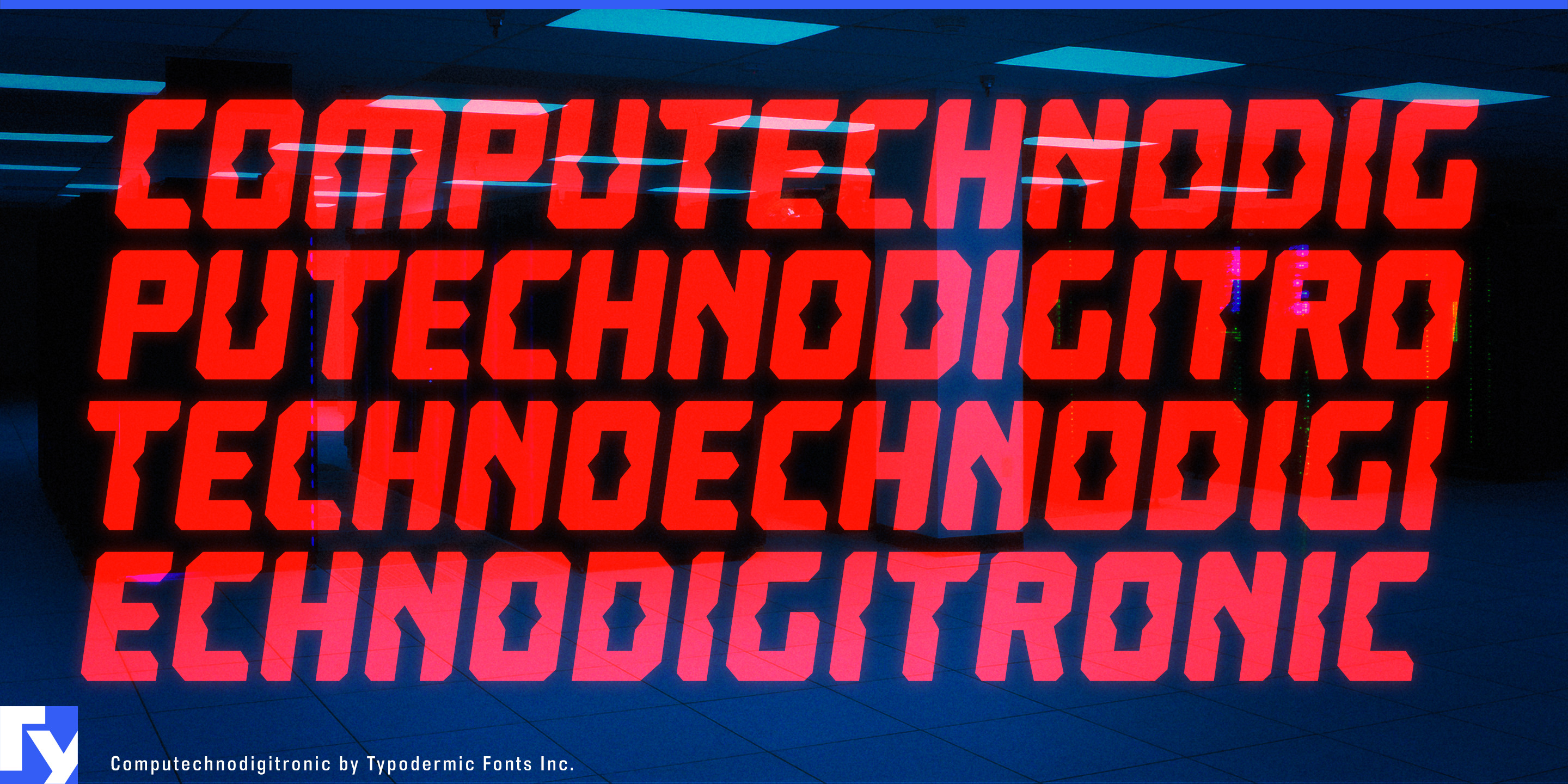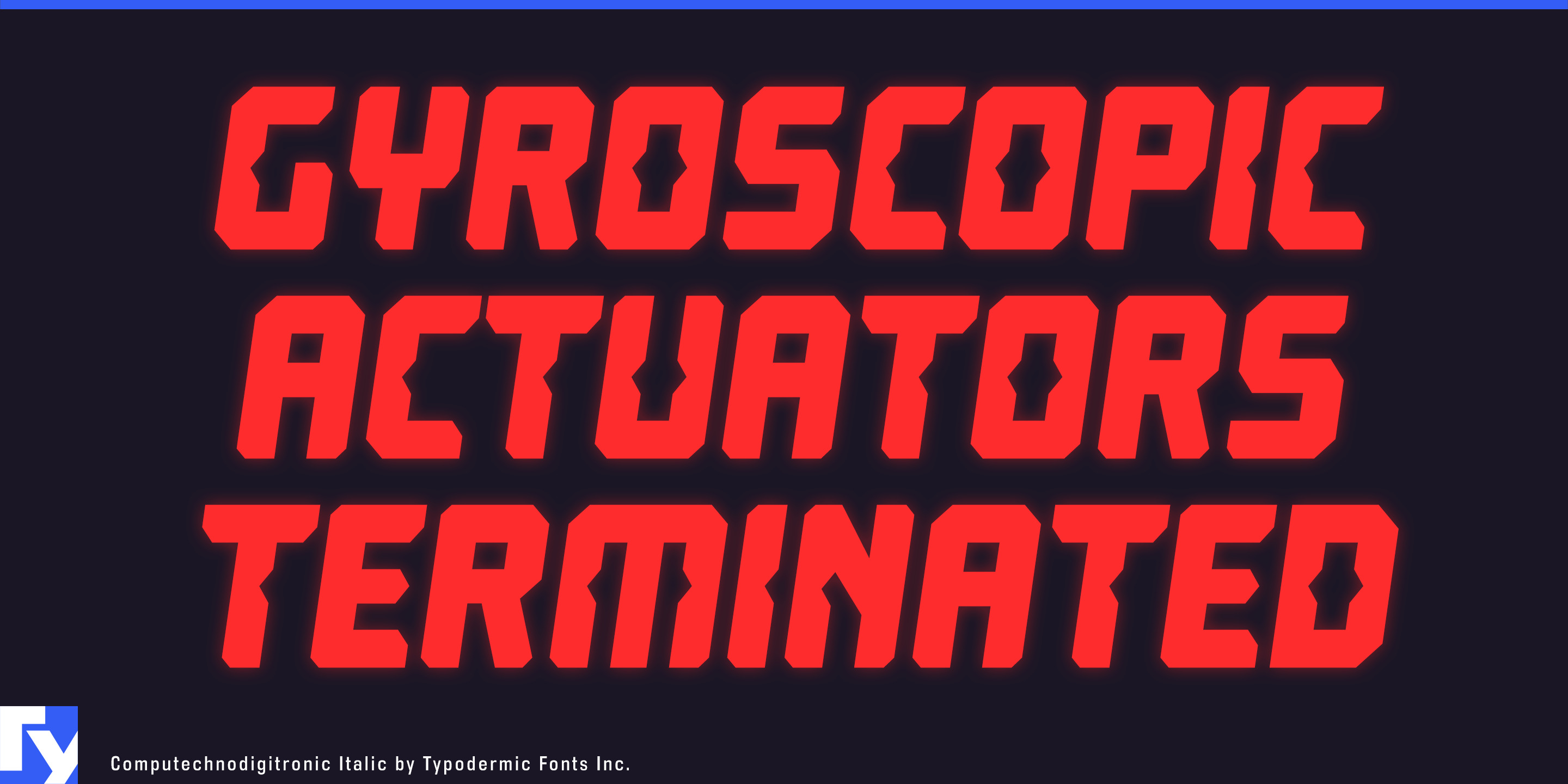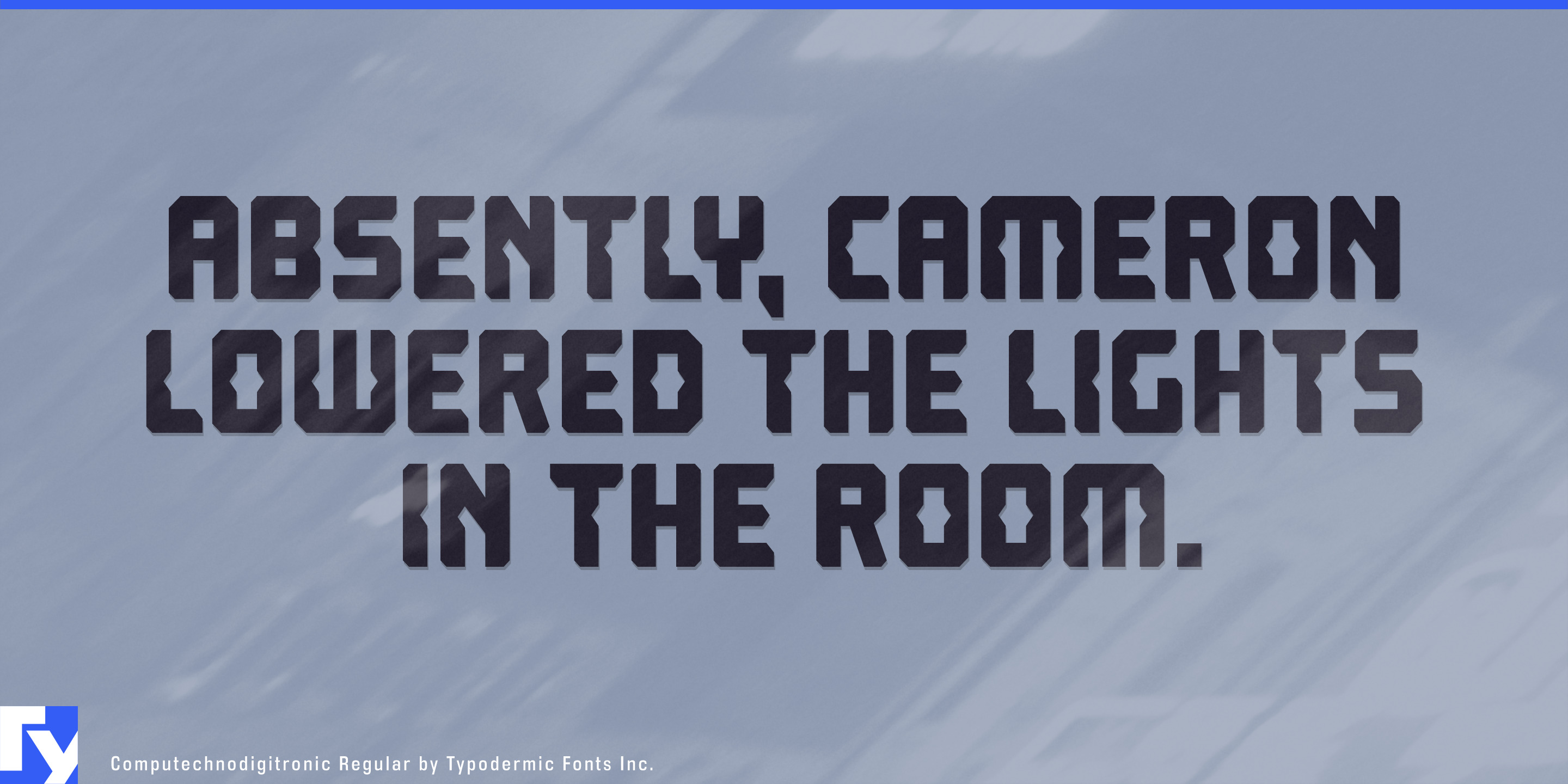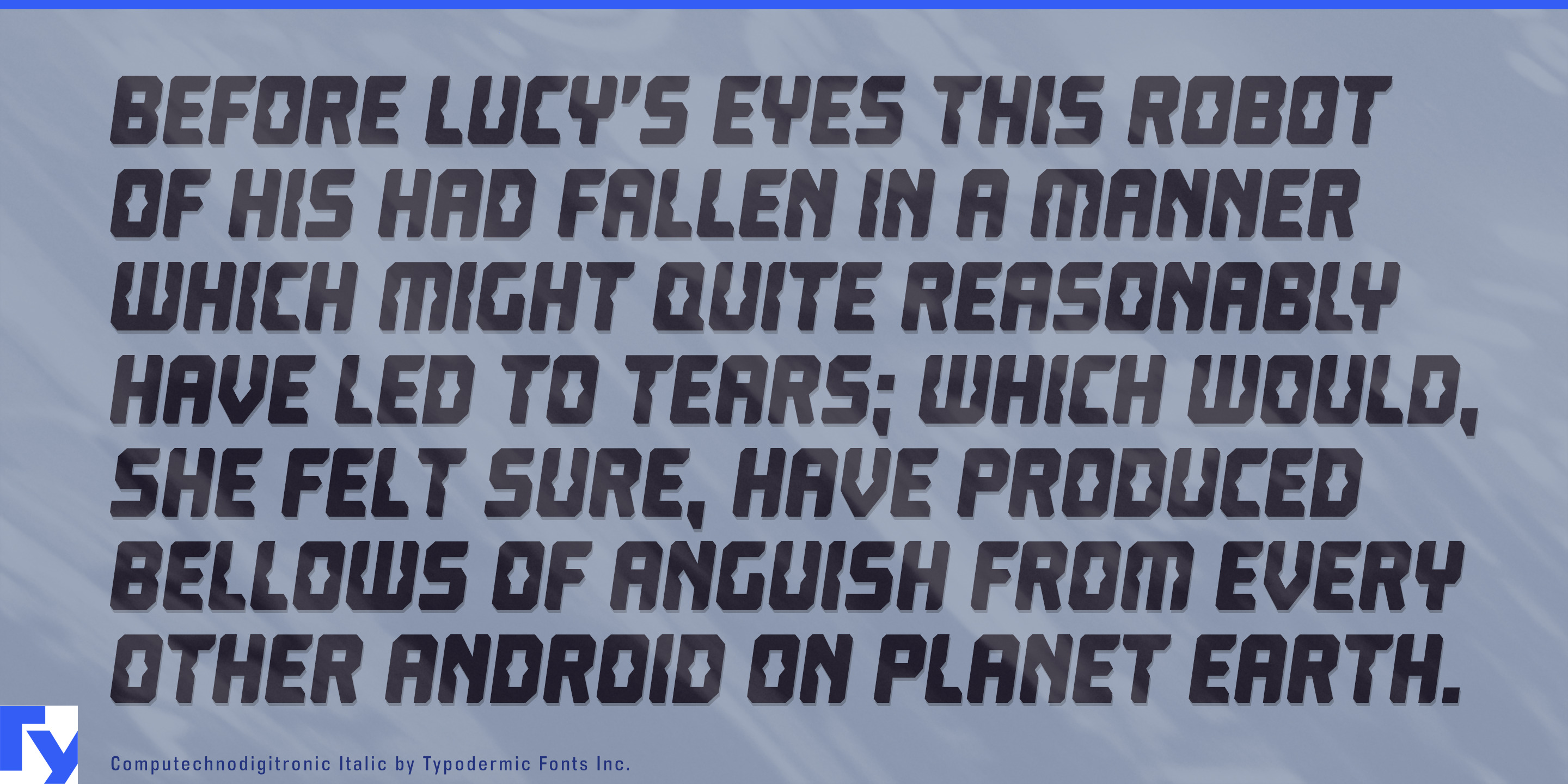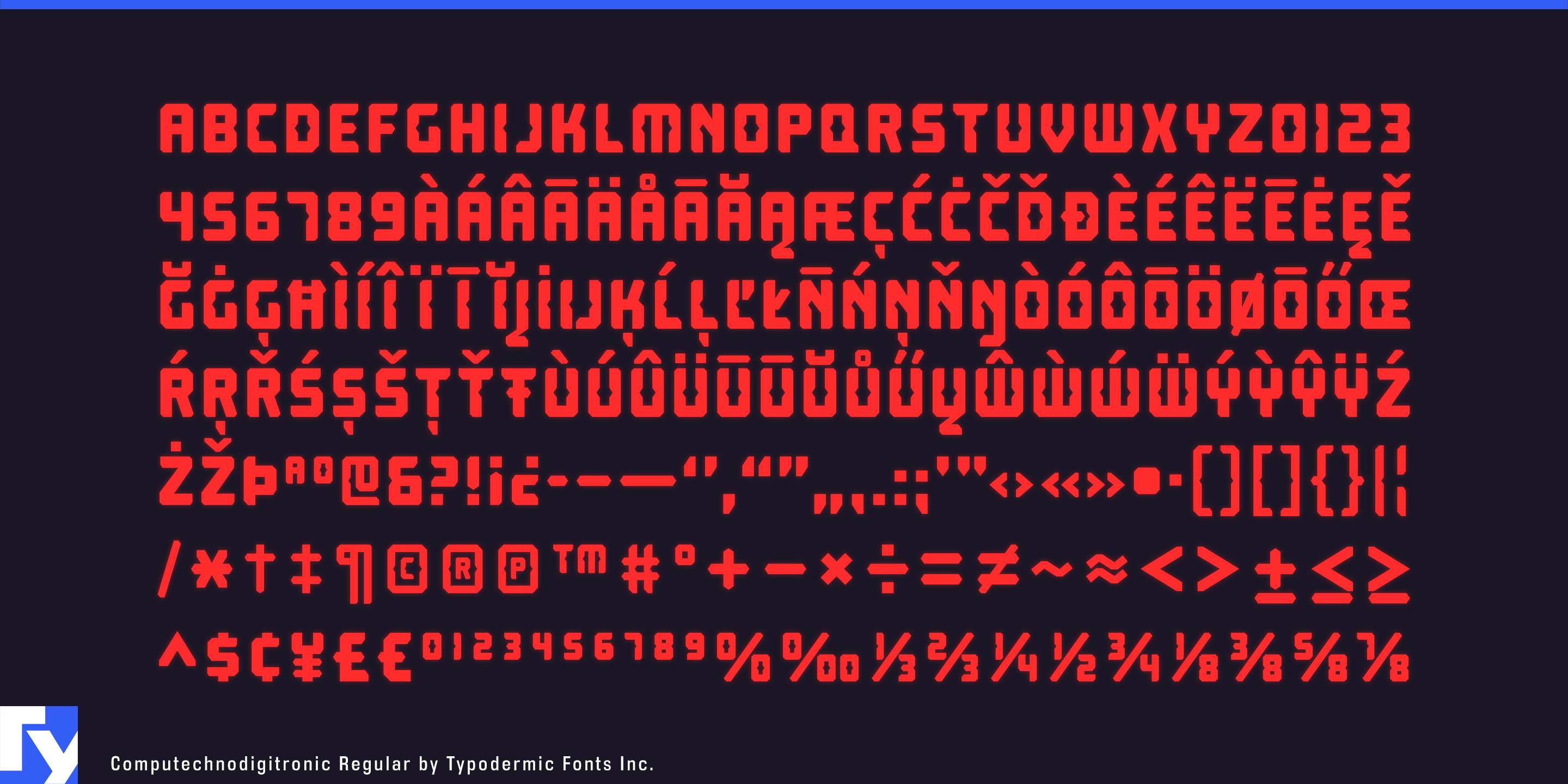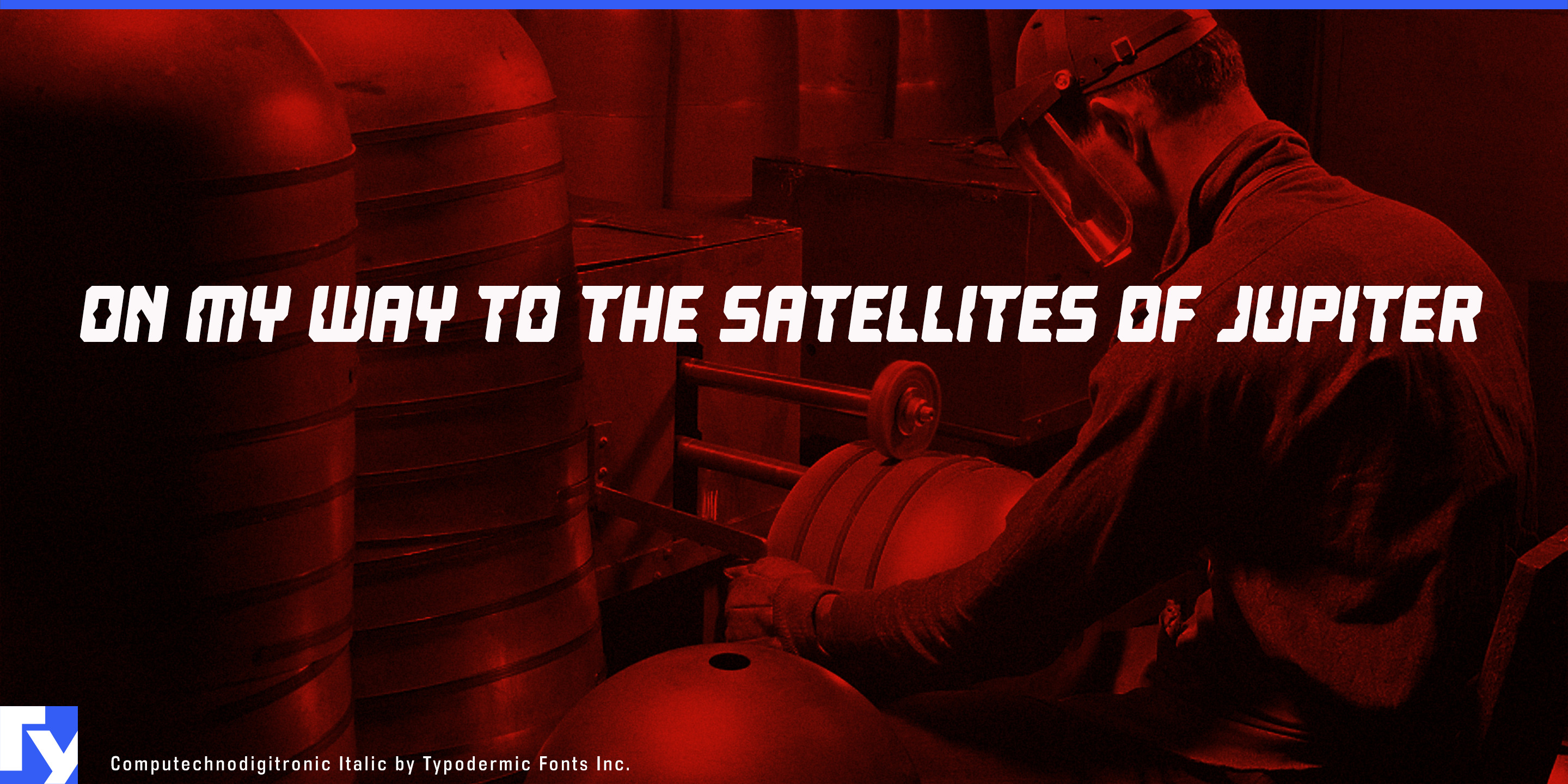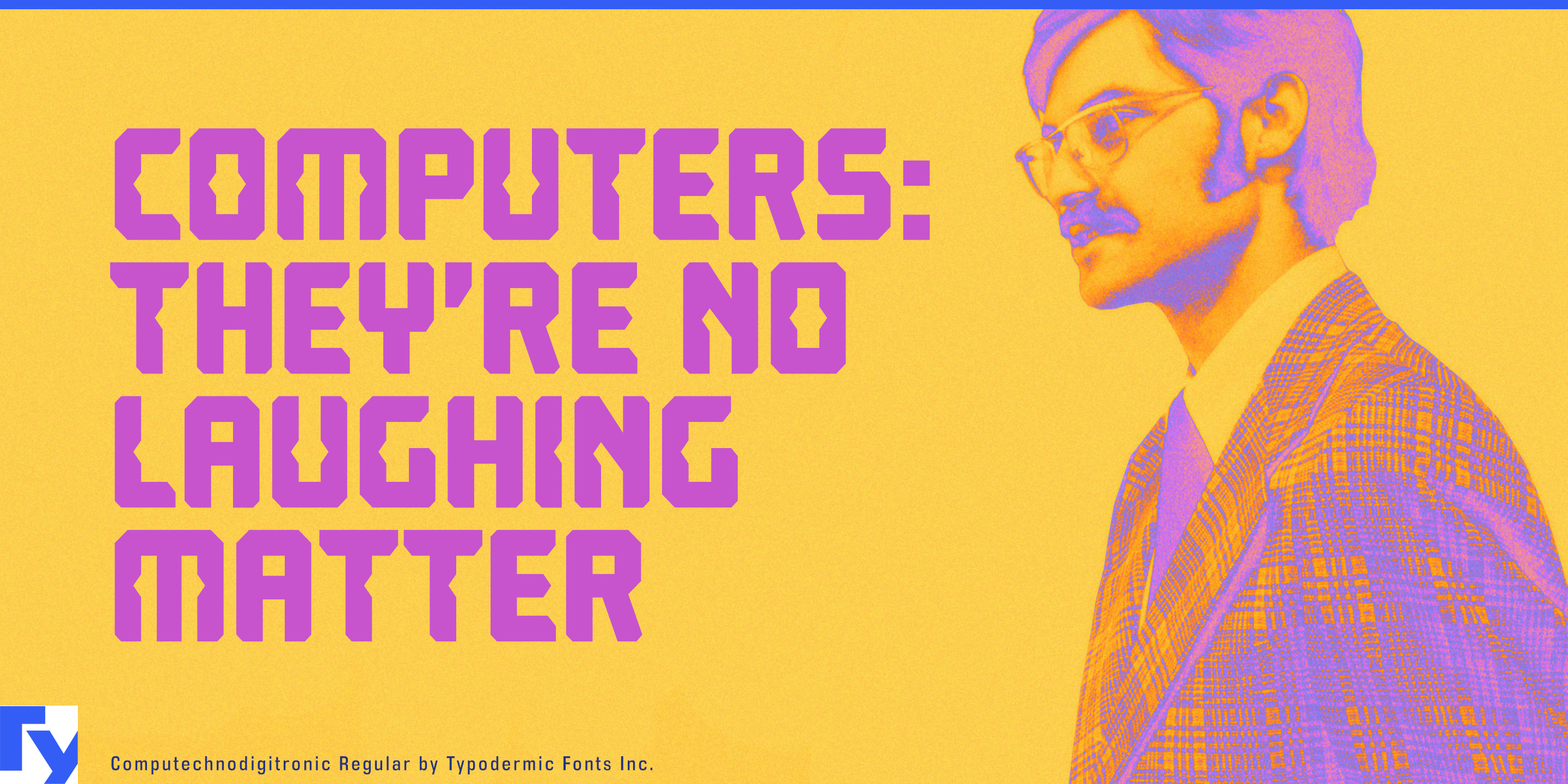
Computechnodigitronic
Computechnodigitronic draws on the visual language of 1980s LED and LCD displays without copying the mechanics of an actual segmented system. Its angled notches and machine-like rhythm suggest an electronic alphabet developed for hardware that never reached production.
Electronic instruments and equipment provide a natural setting. Computechnodigitronic can label synthesizer controls, effects units, audio-plugin interfaces, robotics kits, laboratory instruments, DIY electronics, and fictional control panels. Model numbers, operating modes, parameter names, warning headings, and readouts can all share the same fabricated hardware logic.
Its connection to digital timing displays makes it especially effective for sports. Track-and-field posters, lane assignments, starting lists, split-time tables, finish-line graphics, personal-best records, and stadium displays can carry the event and its results in a consistent electronic style. The monospaced numerals keep times, scores, measurements, prices, and percentages aligned in vertical columns.
Calculator displays suggest a different numerical territory. Market-data graphics, investment-report covers, trading simulations, financial-technology campaigns, economic conferences, and calculator interfaces can use Computechnodigitronic to make figures look processed and continuously updated. Its associations are closer to calculation and electronic readouts than to the sober authority of conventional financial typography.
Computer-history exhibitions, vintage-technology articles, arcade graphics, electronic-music packaging, software retrospectives, and science-fiction props can also draw on its invented digital history. Rather than reproducing one particular machine, Computechnodigitronic recalls an era when calculators, digital watches, stereo components, and home computers appeared to be developing a new alphabet together.
Its conspicuous construction is best suited to headlines, labels, captions, short quotations, and several lines of large display copy. A restrained sans serif or conventional monospace can handle longer explanations while Computechnodigitronic marks commands, specifications, event titles, and prominent data.